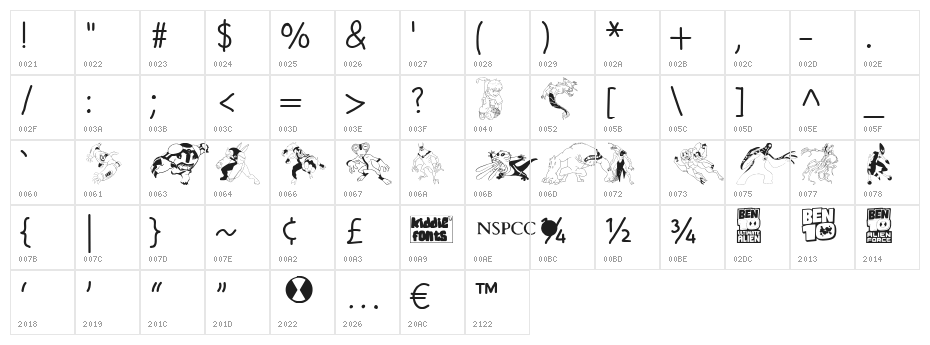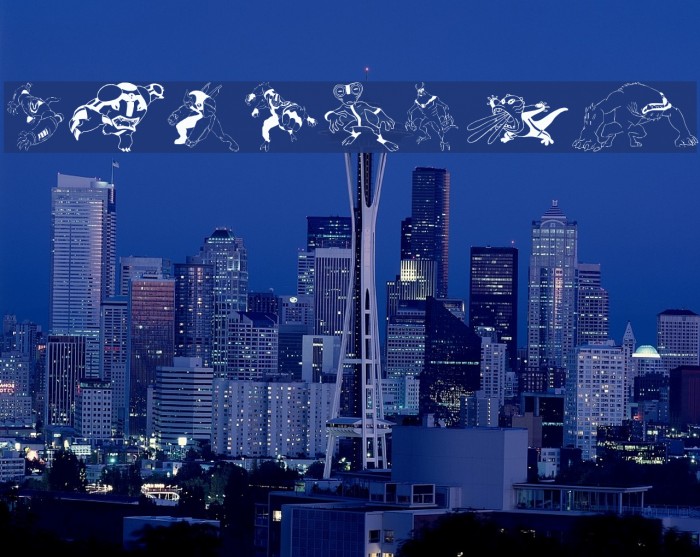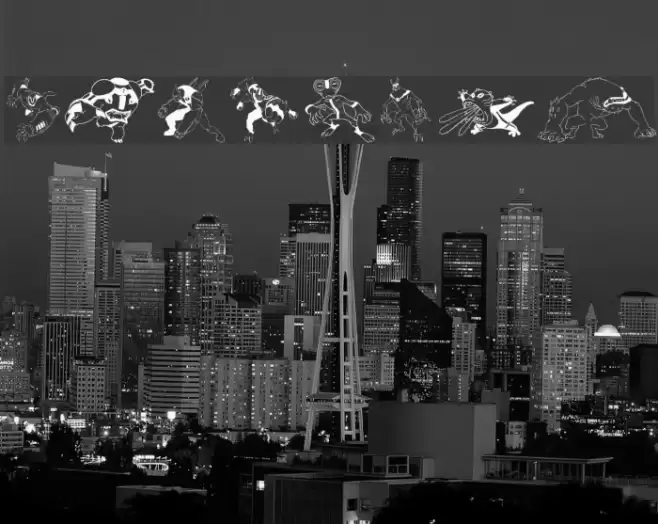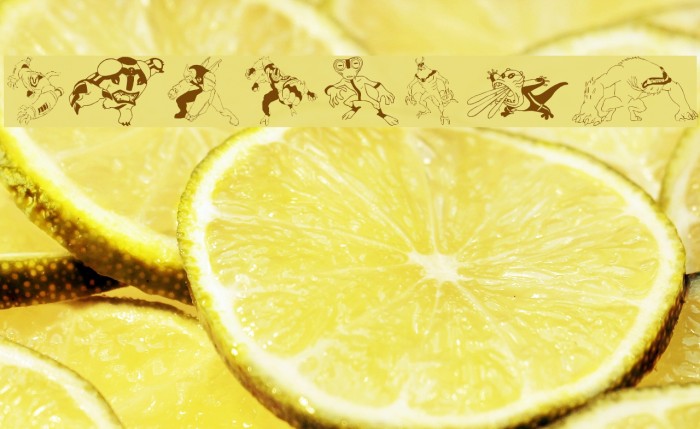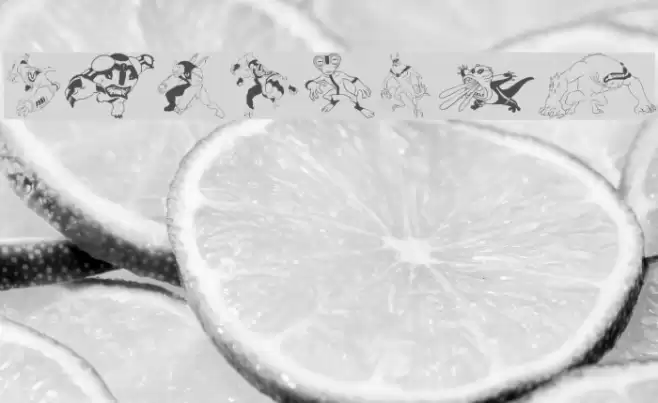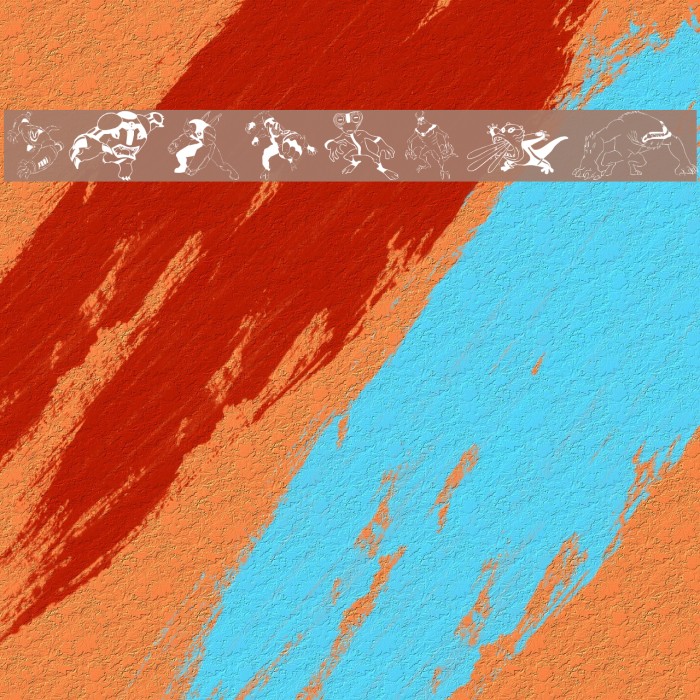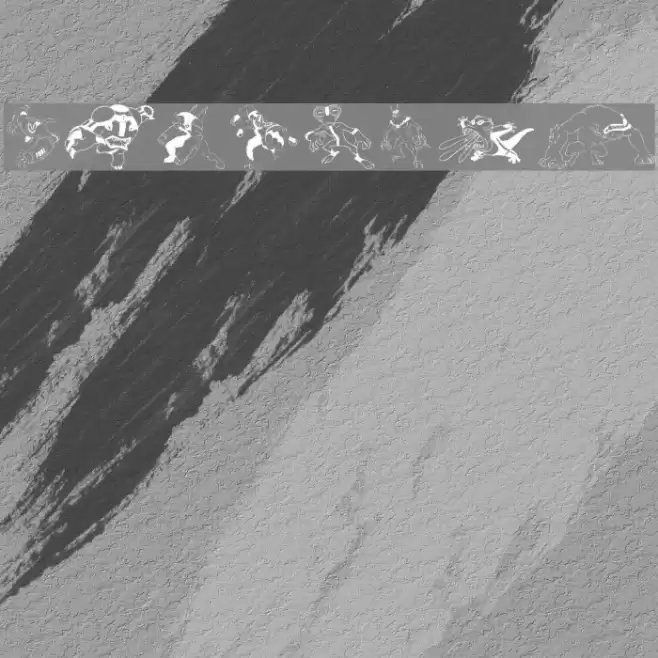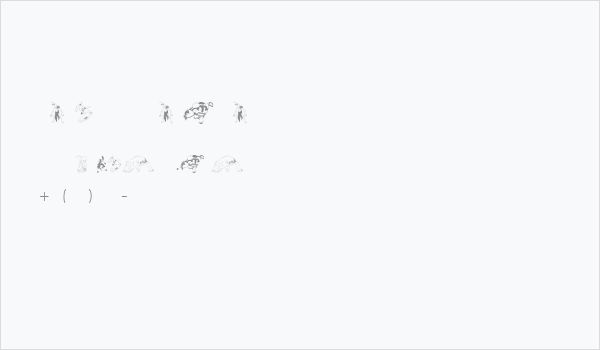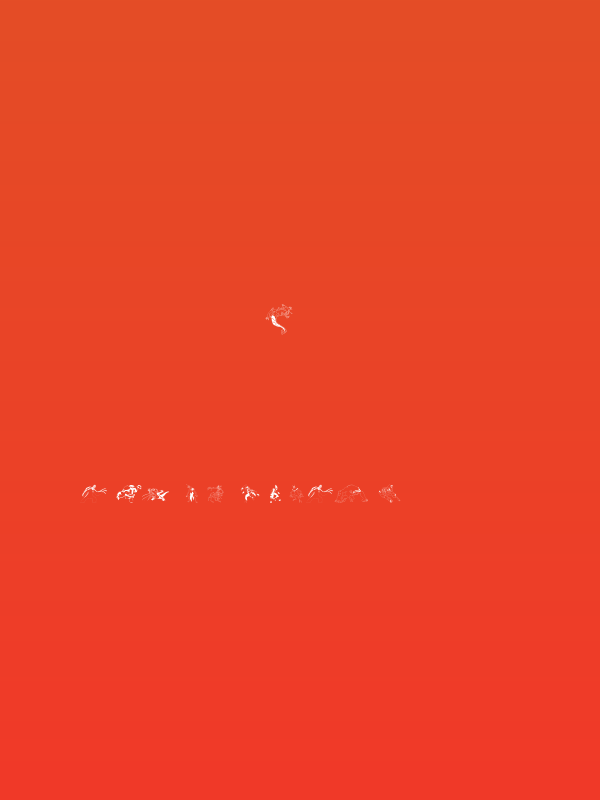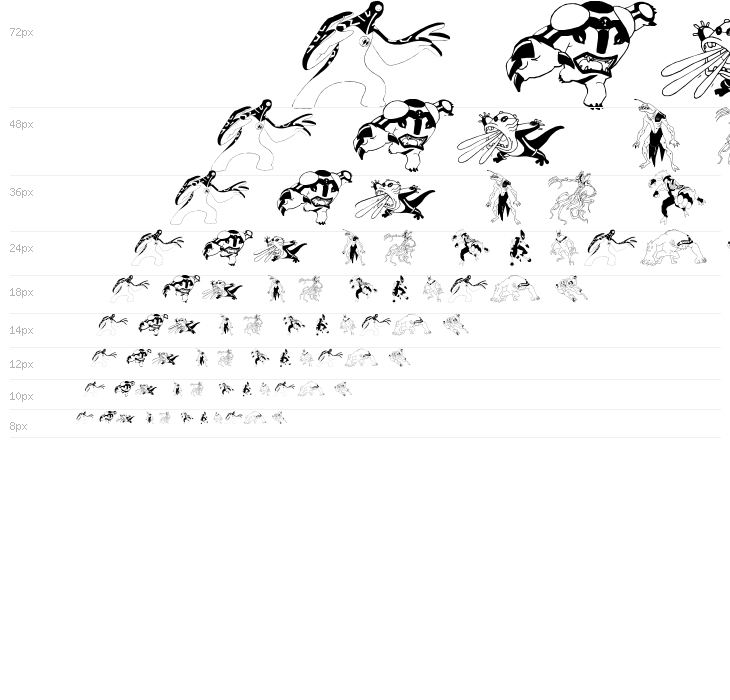
BENS ALIENS Font
A decorative display font featuring stylized illustrations of various alien characters as glyphs, combined with a playful, rounded handwritten style for punctuation and symbols.
Overall StyleDecorative, Playful, Thematic
Use CaseLogos, Posters, Themed Headlines
Proposed ProjectsChildren's party invitations, themed posters, fan art, novelty merchandise, comic titles.